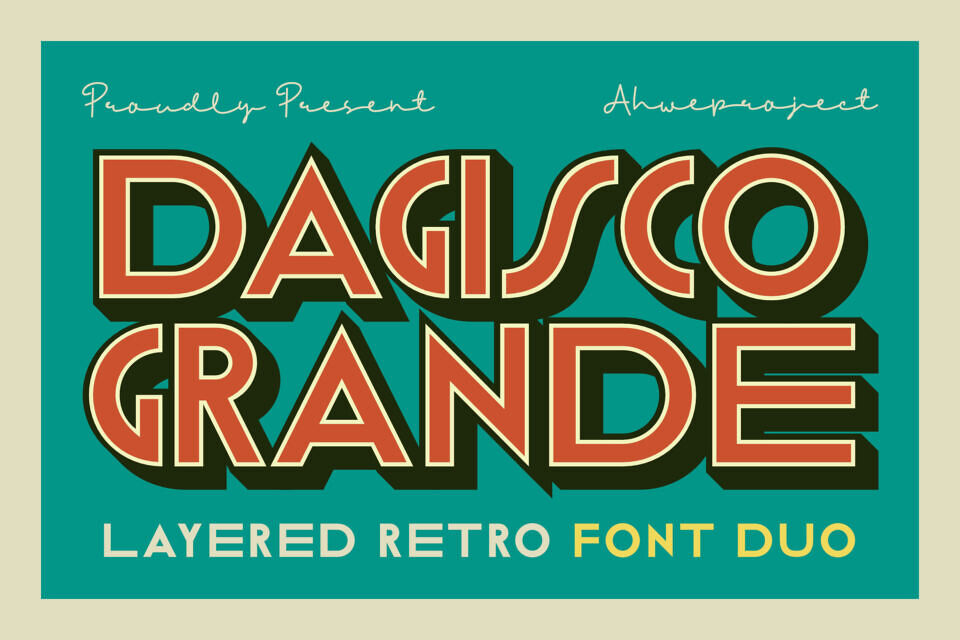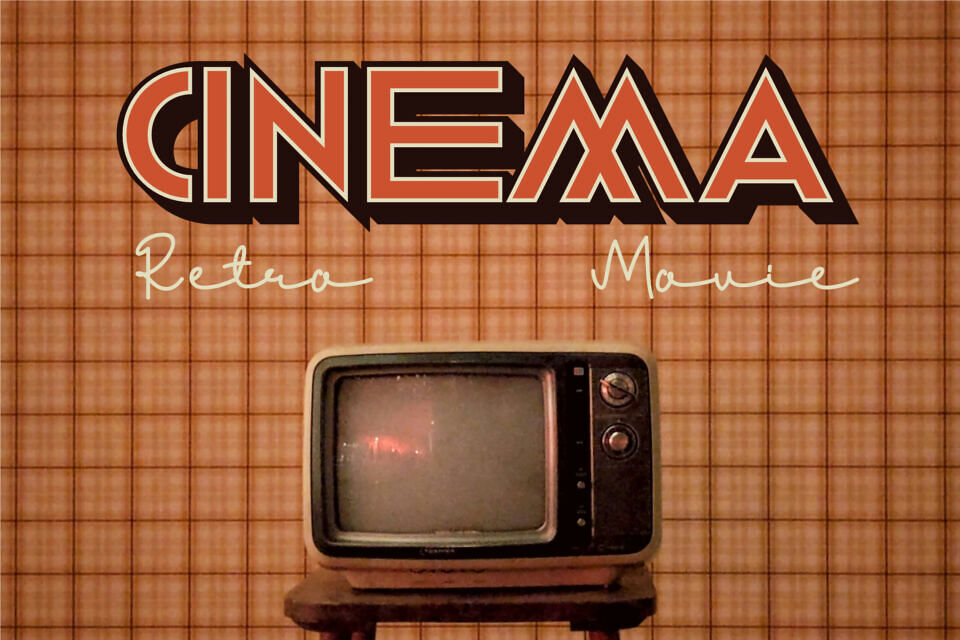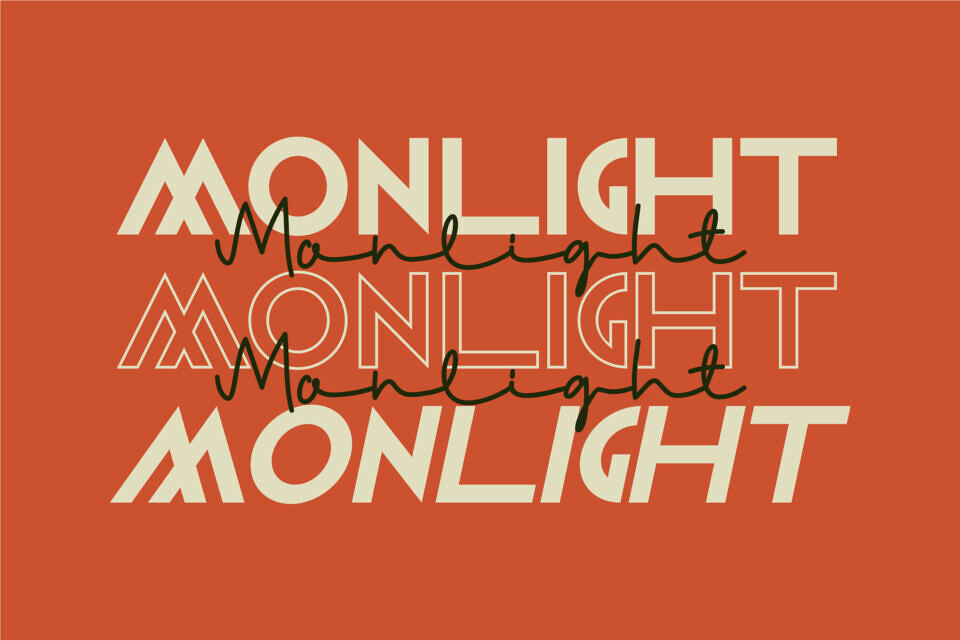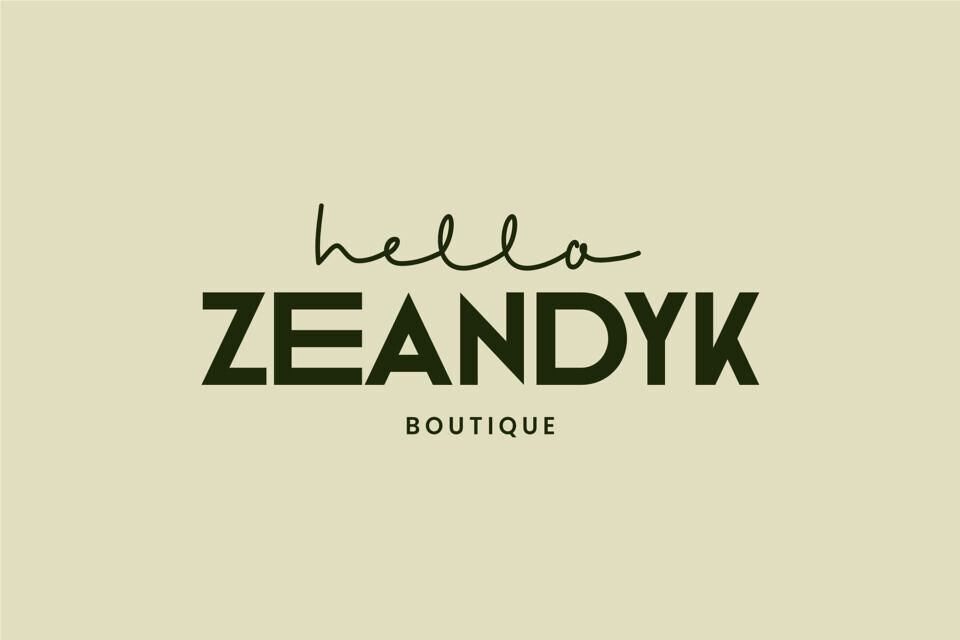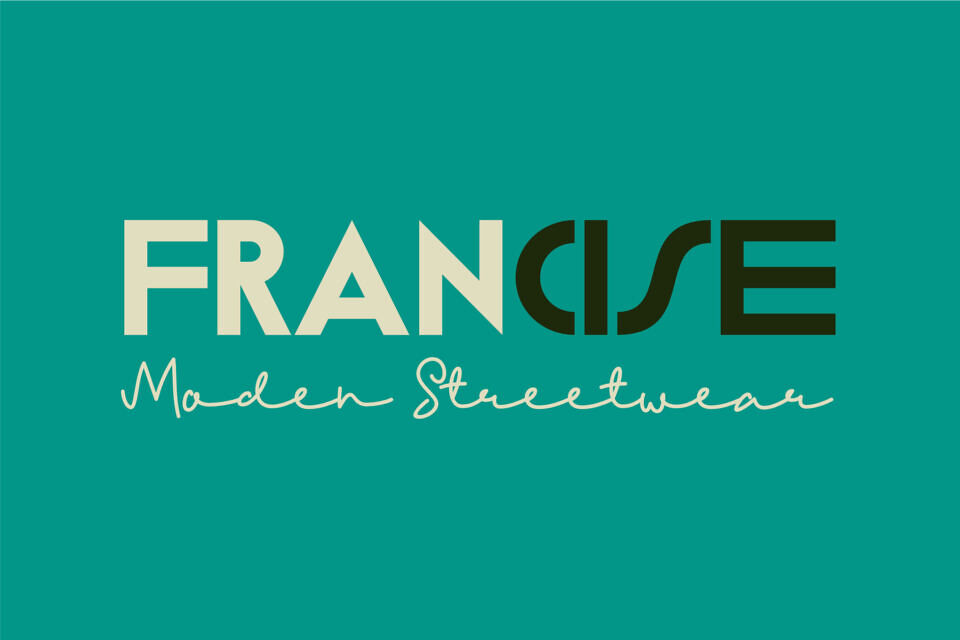
Meet Dagisco Grande, a unique font duo that combines a retro-style layered sans serif with an elegant signature script. Designed with the spirit of the vintage era yet crafted to stay relevant in modern design, this font duo is ready to elevate your visual identity across a wide range of creative projects.
Dagisco Grande Sans Serif features bold, sharp characters inspired by colorful retro 70s design, complete with eye-catching 3D shadow effects. Meanwhile, Dagisco Grande Script brings a smooth and graceful handwritten style, perfect for adding feminine touch to taglines, subheadings, or signature-style elements.